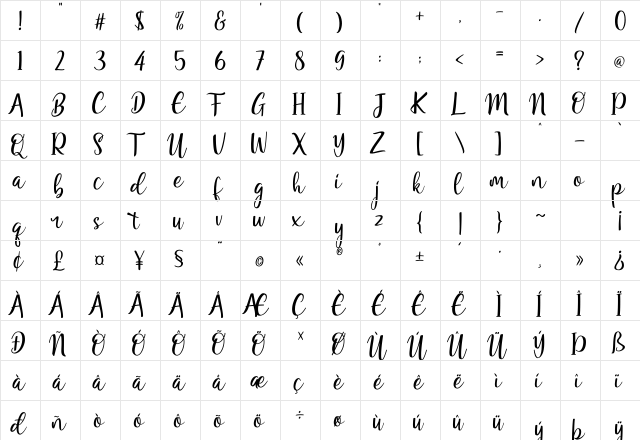
Renitah Regular
Design Context for Renitah Typeface
Renitah is a composed and adaptable typeface that performs quietly and consistently across a wide range of design contexts.
Pro Tip: Pair Renitah with a font of contrasting weight or personality to build a more expressive typographic hierarchy.